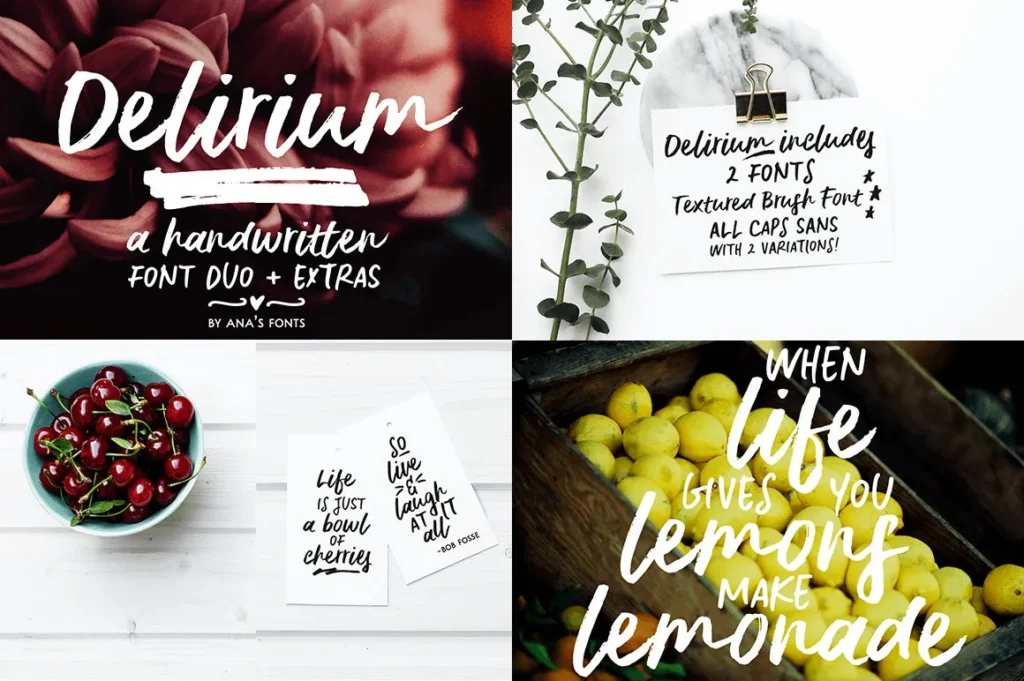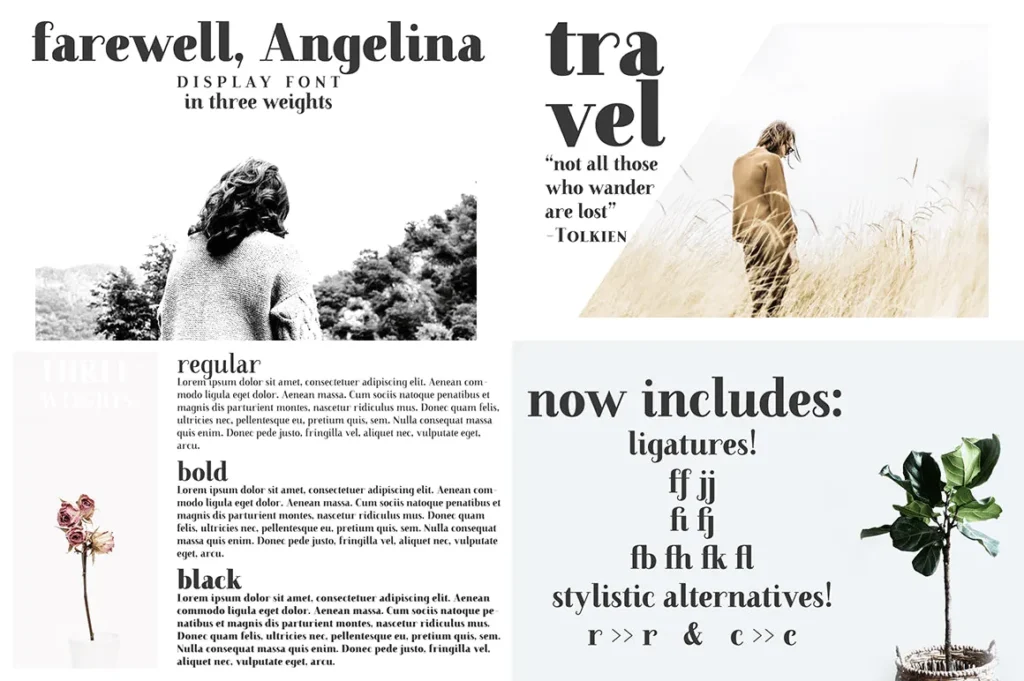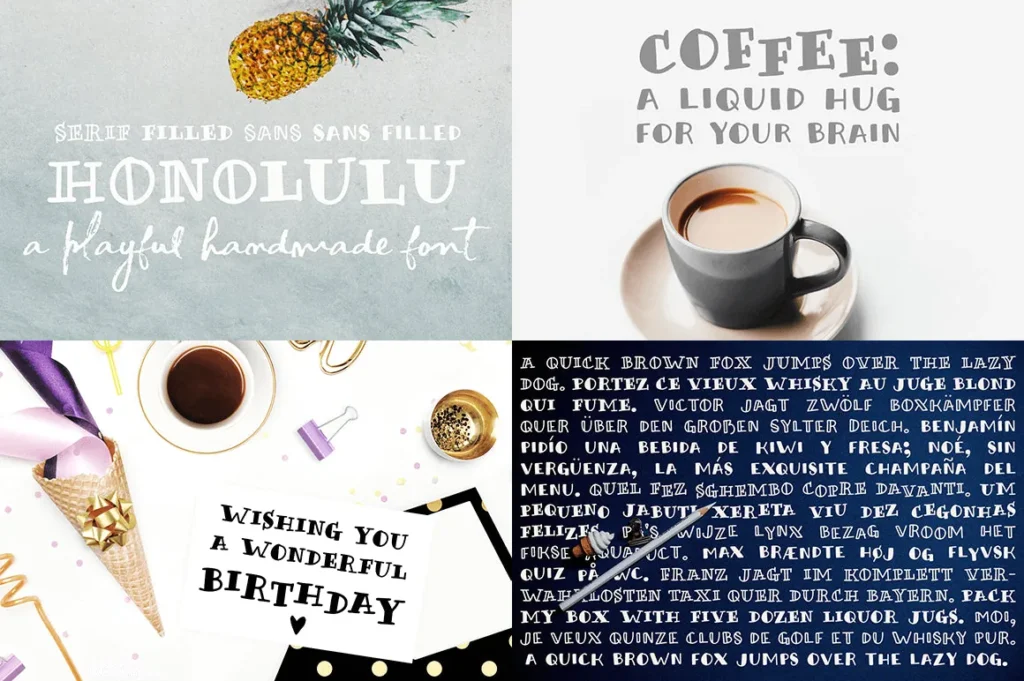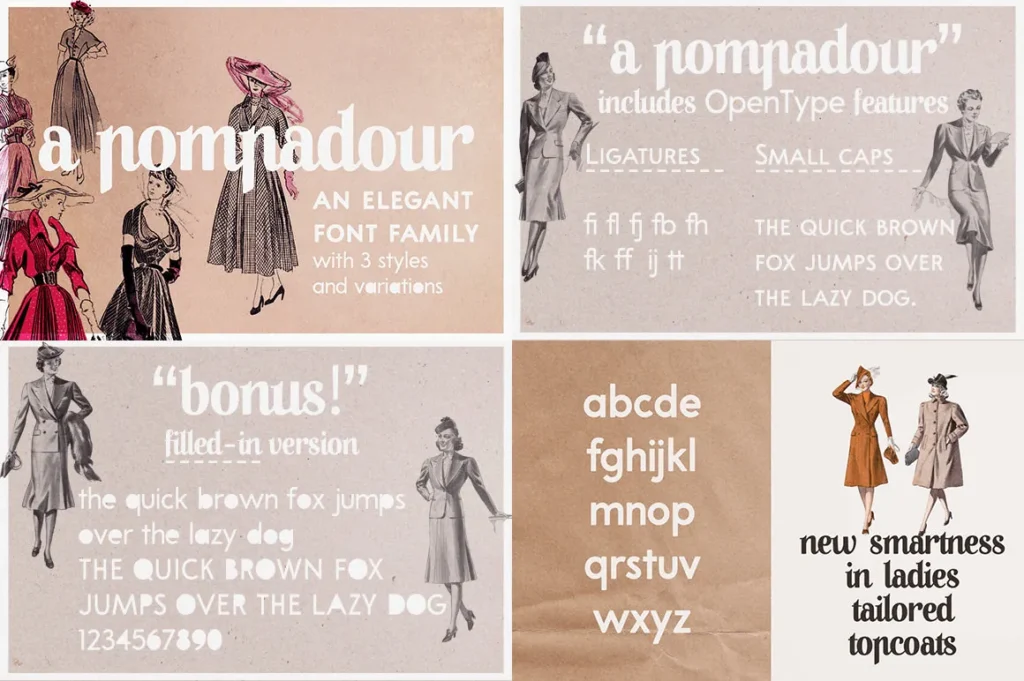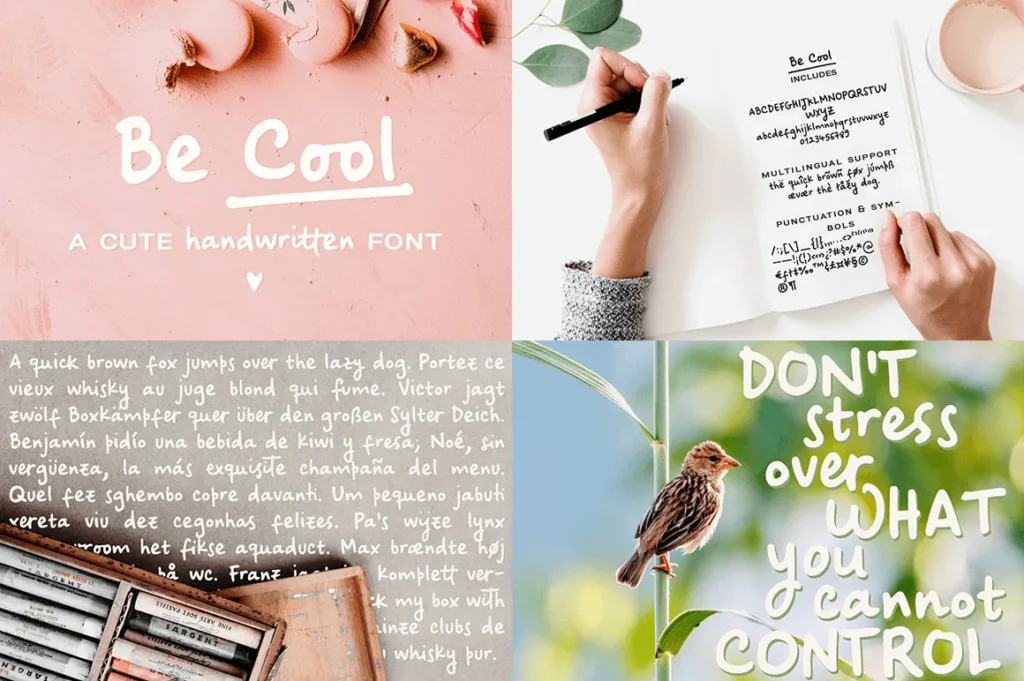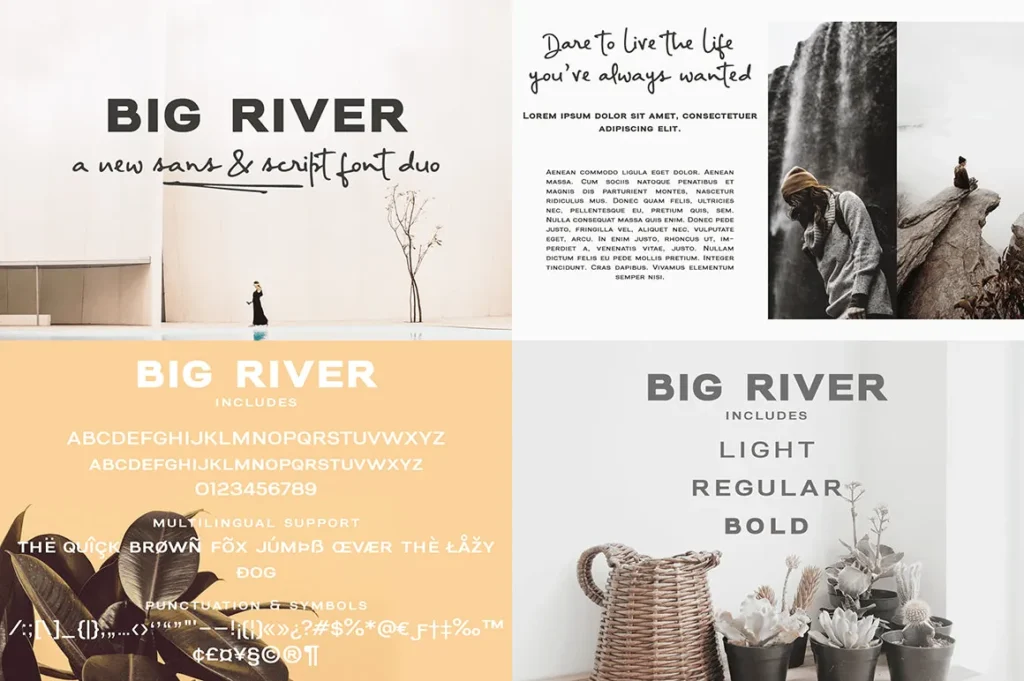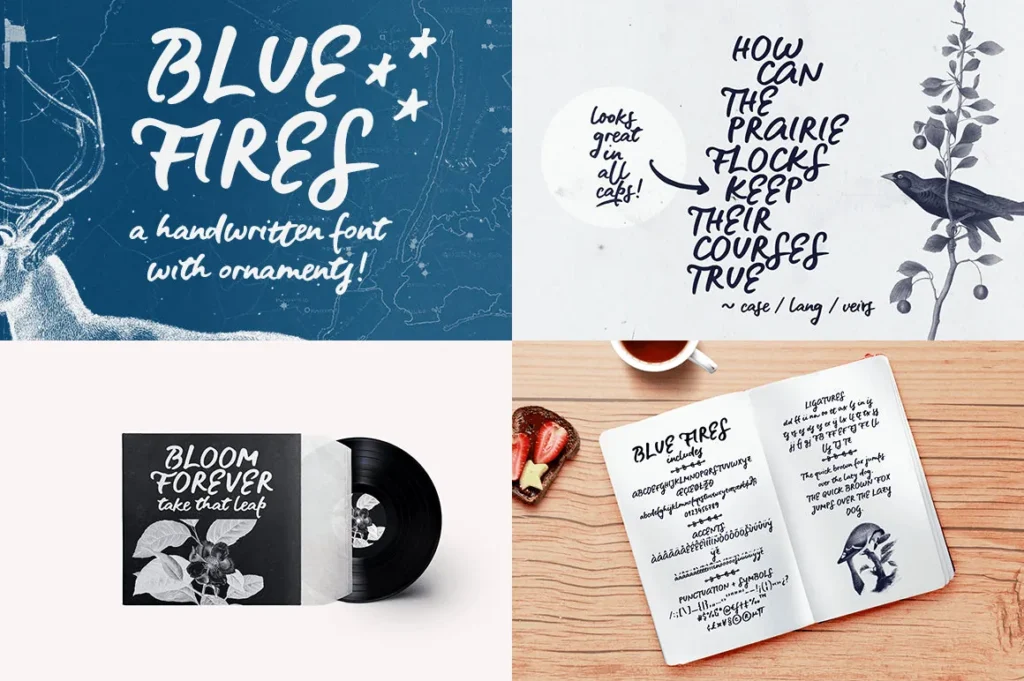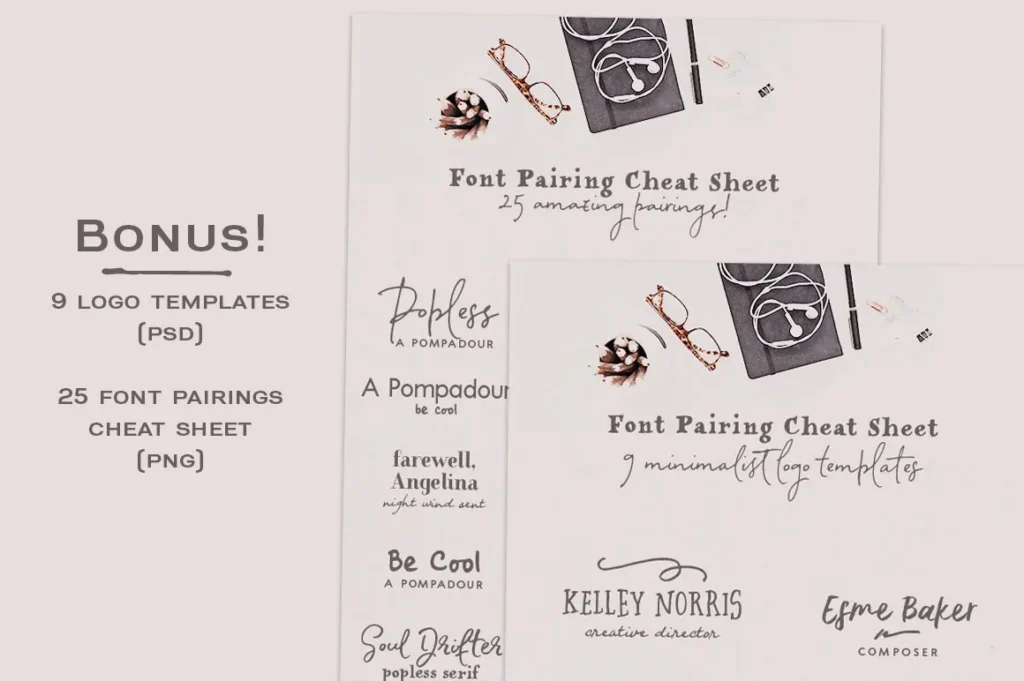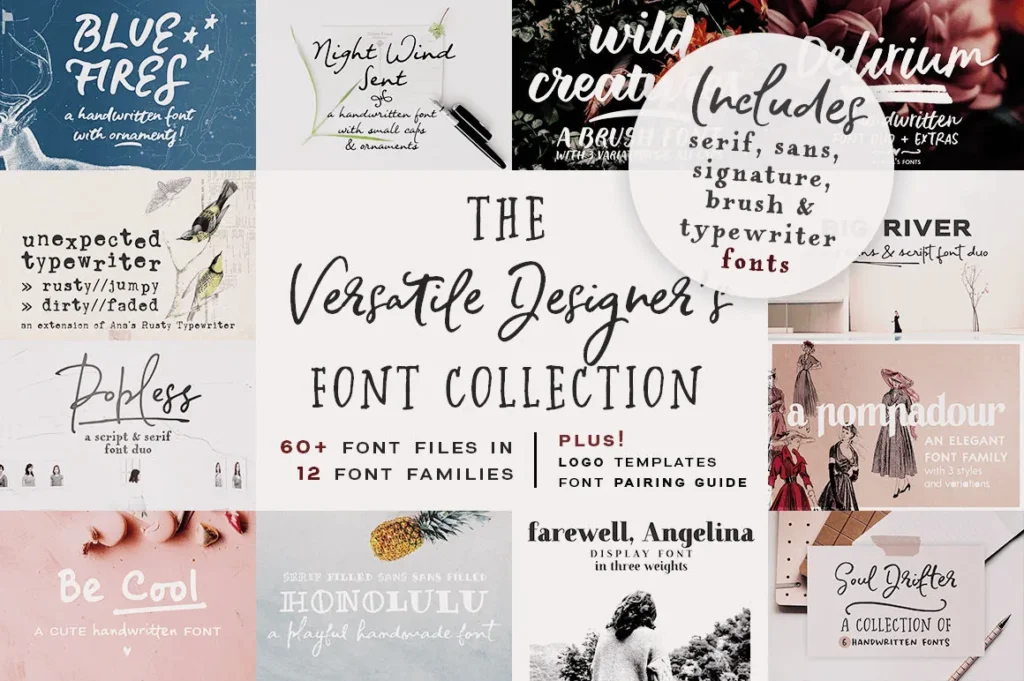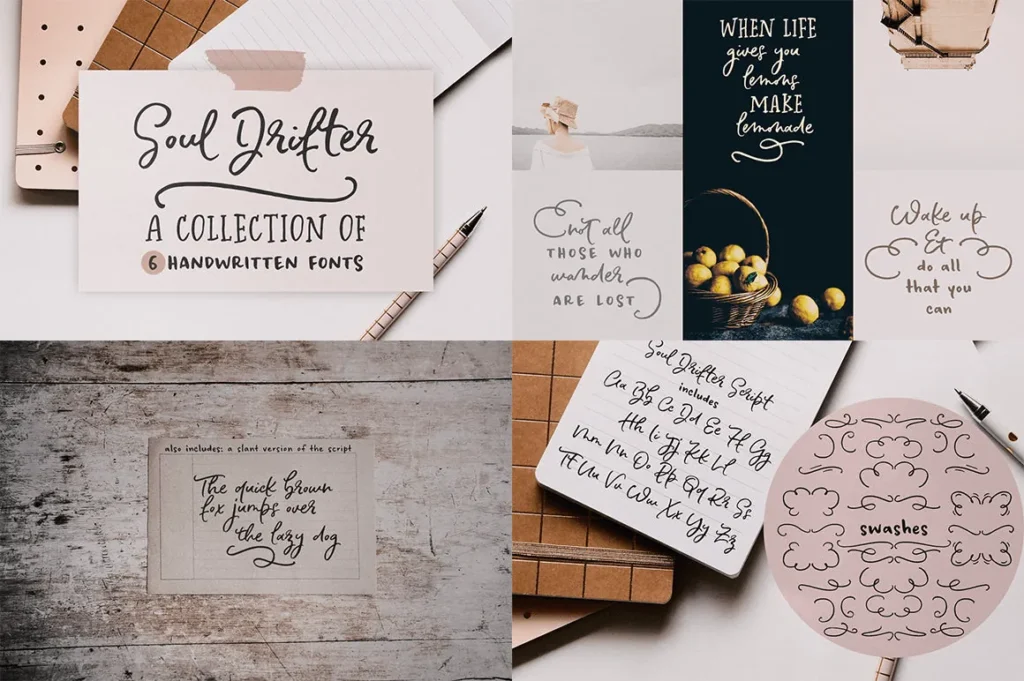
The Versatile Designer’s Font Collection is a bundle of over 60 fonts, from 12 font families. It includes all the types of fonts you’ll need, from serif to sans serif, from handwritten to typewriter fonts. This collection includes cute fonts, retro fonts, elegant fonts and modern fonts. And in case you need a little inspiration on how to mix and match the fonts, this bundle also comes with a handy font pairing guide with 25 fresh pairings and 9 minimalist logo templates.
- Blue Fires brush font
- Night Wind Sent signature font
- Wild Creatures brush font
- Delirium brush font
- Unexpected Typewriter font
- Big River script and sans font duo
- Popless script and serif font duo
- A Pompadour retro font duo
- Be Cool cute handwritten font
- Honolulu handwritten font family
- Farewell Angelina serif display font
- Soul Drifter handwritten font collection